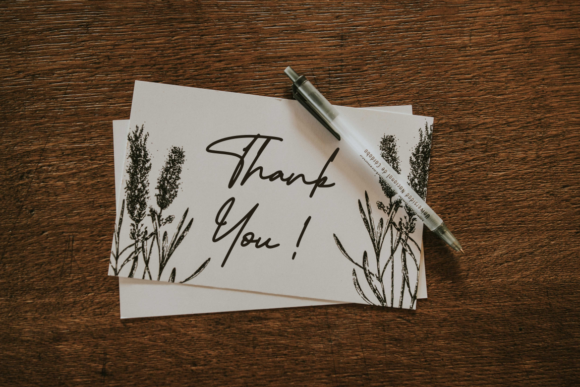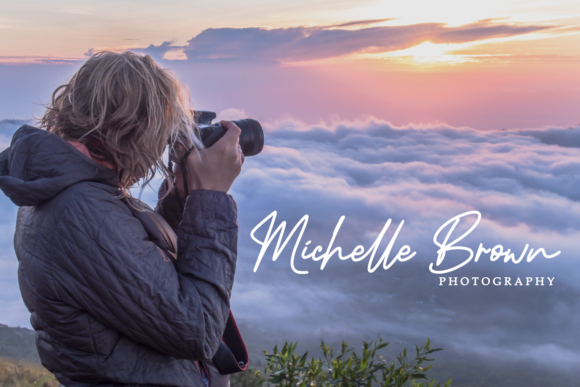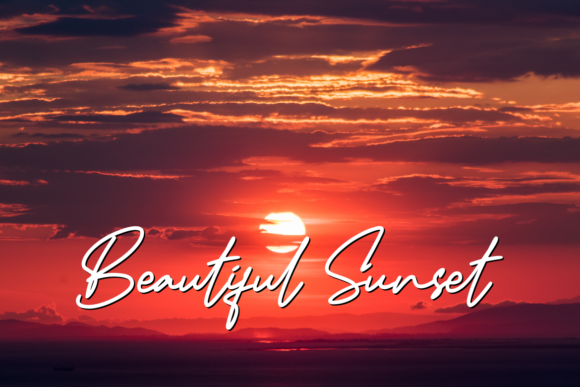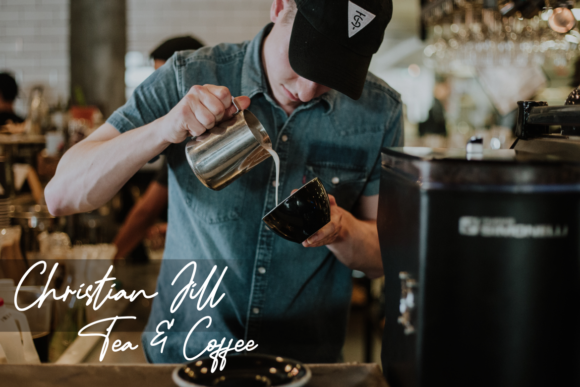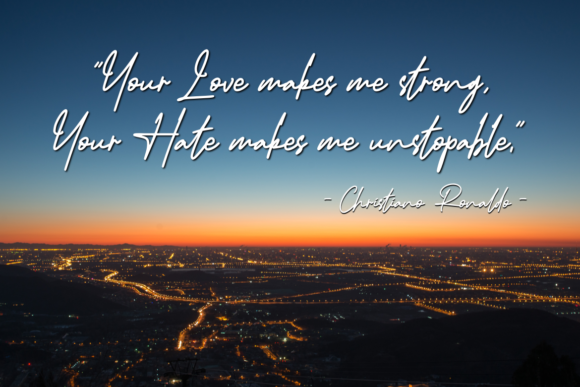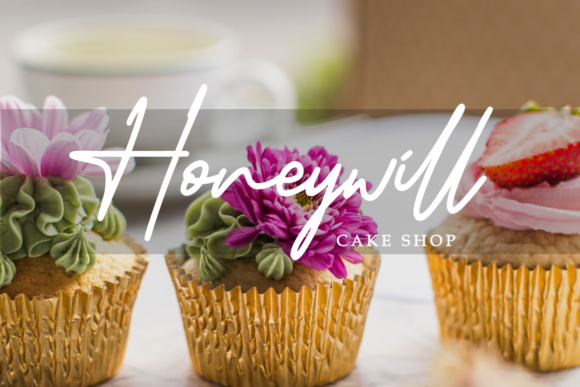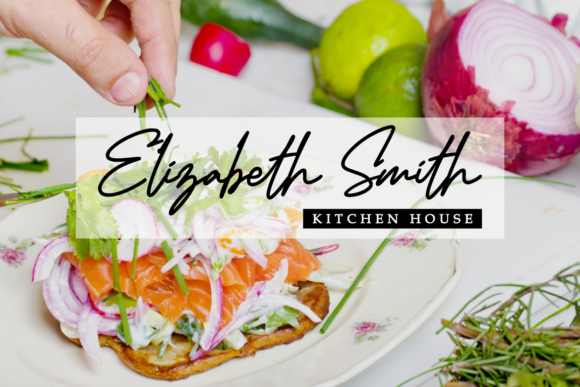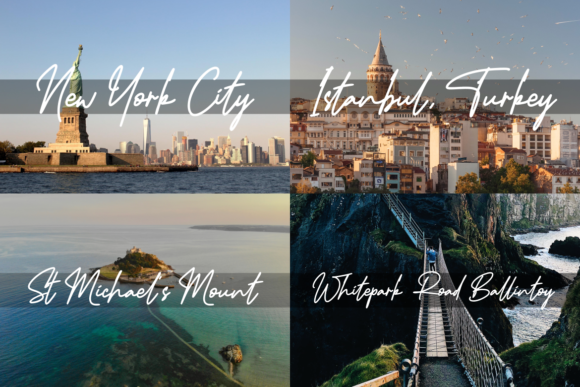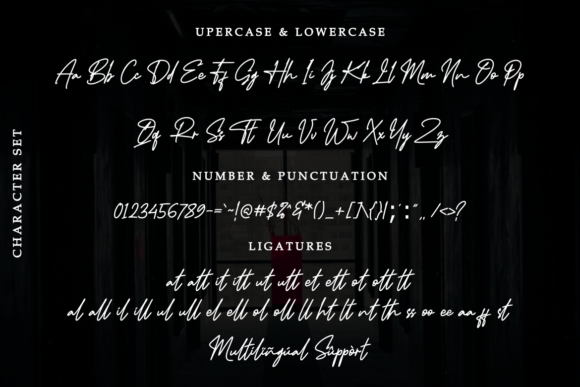
HomeScript FontsMidlestone Font Script Fonts Midlestone Font FacebookXPinterestWhatsApp Midlestone Font Poster 2 Midlestone Font Poster 3 Midlestone Font Poster 4 Midlestone Font Poster 5 Midlestone Font Poster 6 Midlestone Font Poster 7 Midlestone Font Poster 8 Midlestone Font Poster 9 Midlestone Font Poster 10 About Midlestone Font Midlestone is a fun and sweet script with a cool twist. Use it to turn any design project into a piece of art! DOWNLOAD ON CREATIVE FABRICAThis font is sold and delivered by Creative Fabrica. Font Canyon may earn a commission if you buy through this link. People also explored Love More Font Misstho Font Wiggle Font Lariess Font Learn Online Font Honey Moon Font Angelica Script Gakyo Font Holiday Belinda Lovely Font 334 0 TagsMidlestone Font Previous articleMottion FontNext articleViceland Font LEAVE A REPLY Cancel reply Comment: Please enter your comment! Name:* Please enter your name here Email:* You have entered an incorrect email address! Please enter your email address here Website: Save my name, email, and website in this browser for the next time I comment. Personal Use Free BD Medled Personal Use Free Read more about this font Namskow Personal Use Free Read more about this font Chandella Personal Use Free Read more about this font New System Personal Use Free Read more about this font BLOG Transform Your Website: Elevate Your Typography with 7 Best Web Font Generators Are you ready to transform your website's typography from ordinary to extraordinary? Great! Today, we're diving into the world of web font generators, which... Using Fonts in Digital Marketing: Tips to Strengthen Your Brand Identity Free Fonts Risk: Why Free Fonts Can Be Dangerous for Designers How to Install and Use Fonts on Windows, macOS, and Web Projects